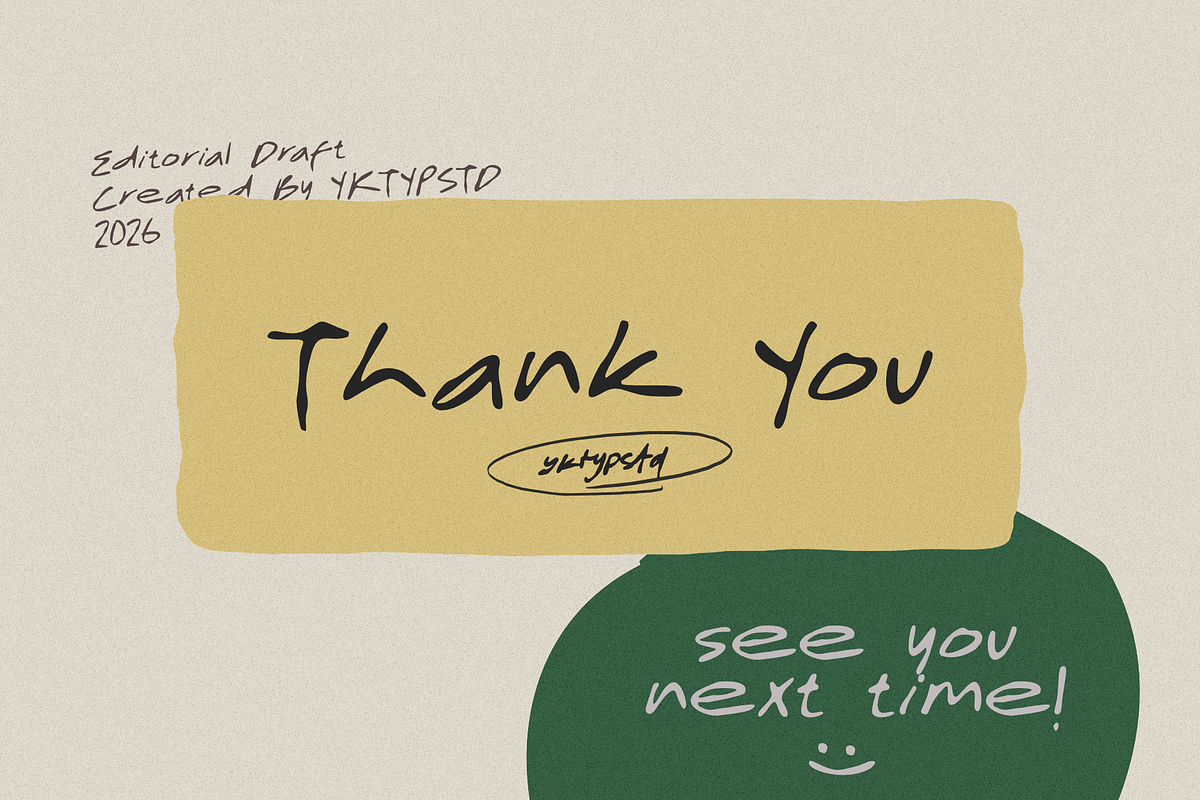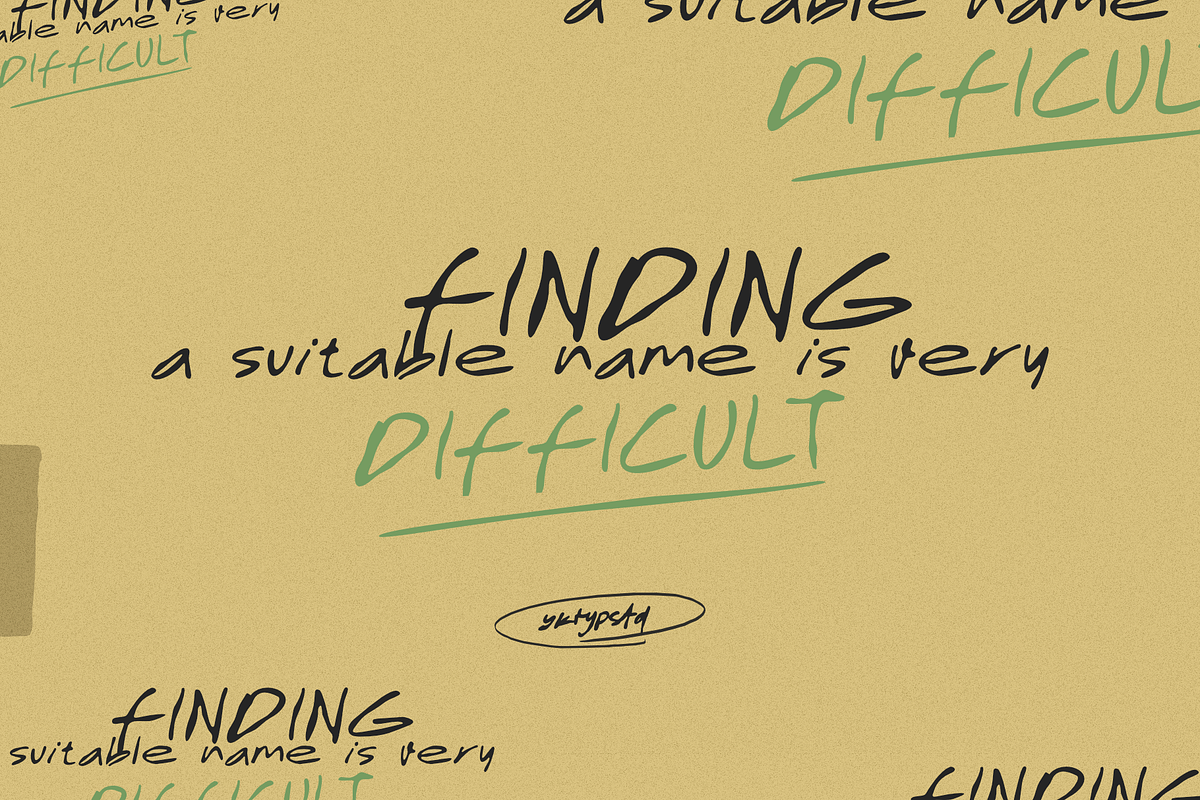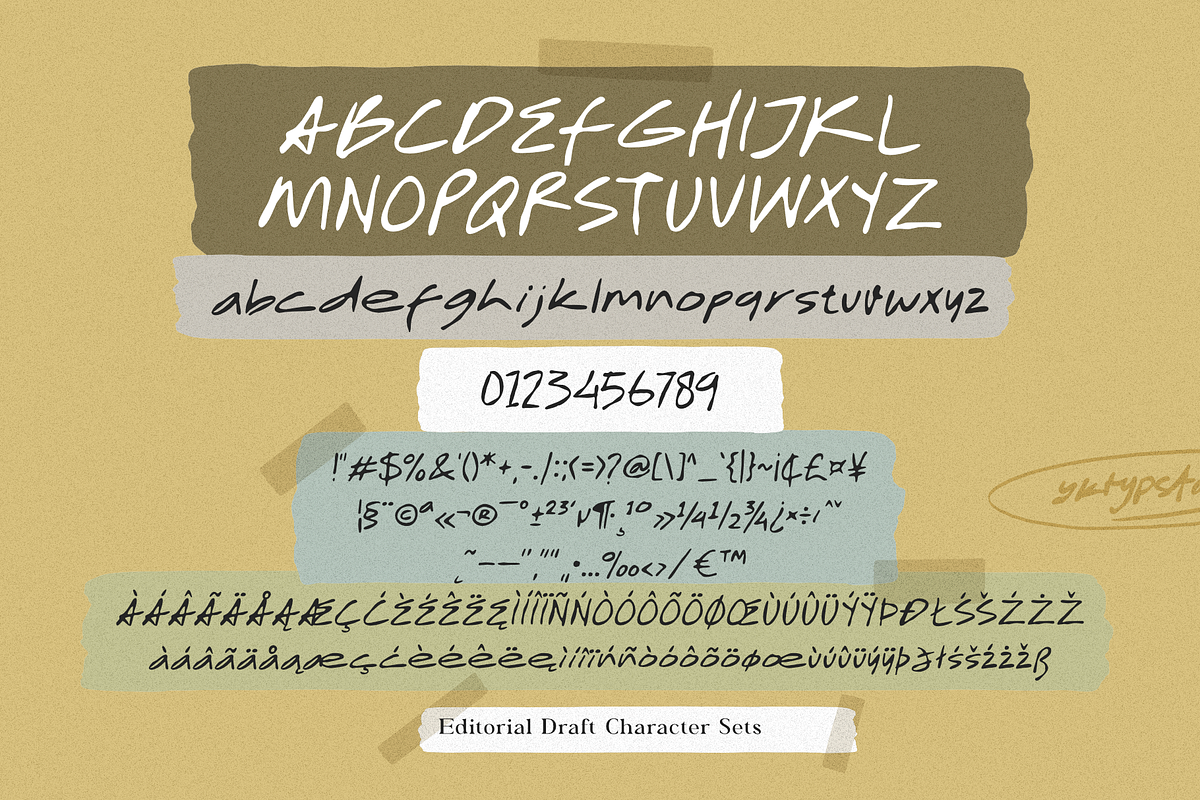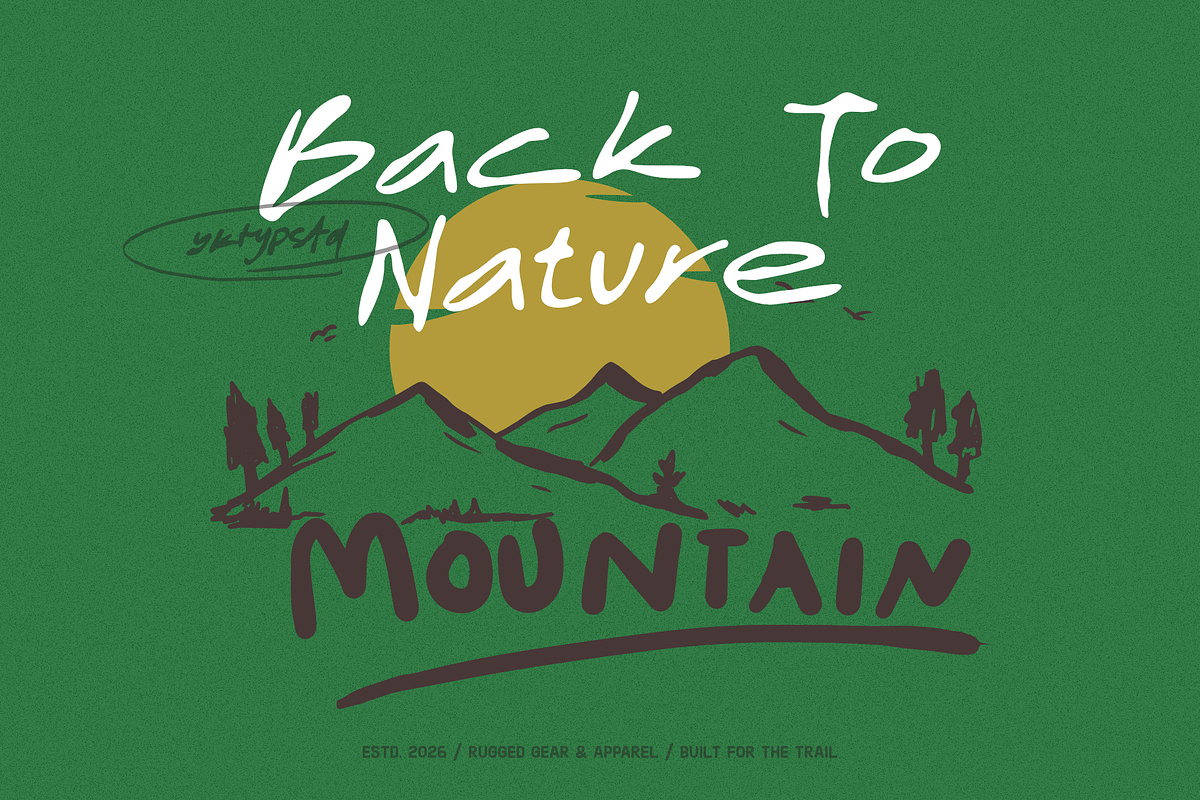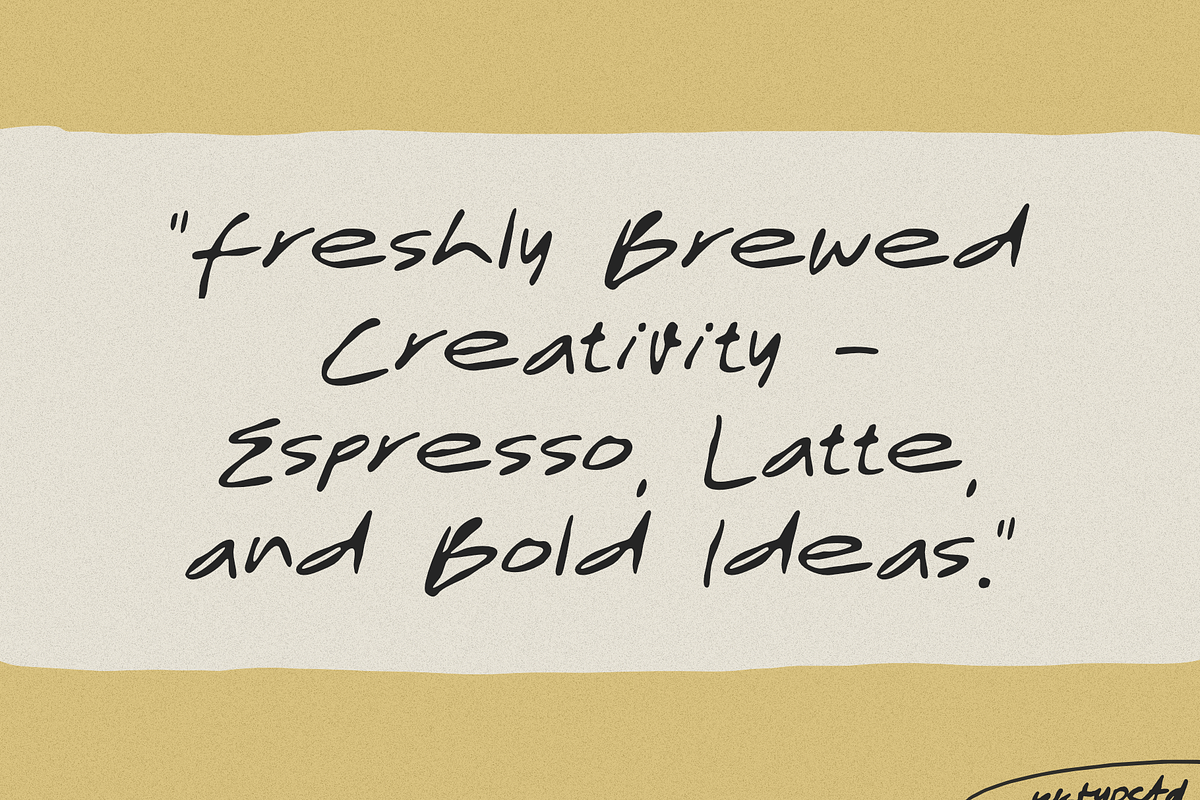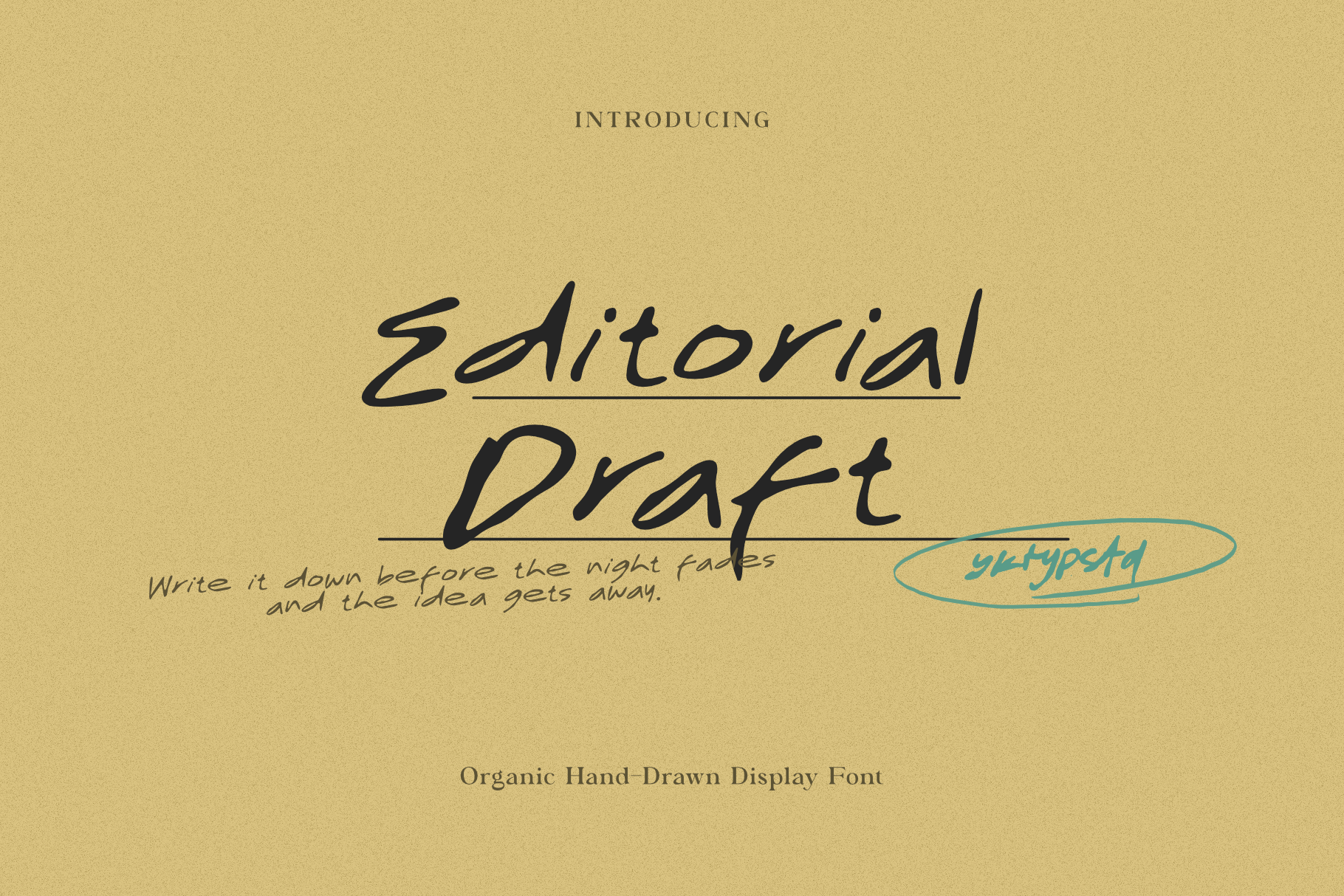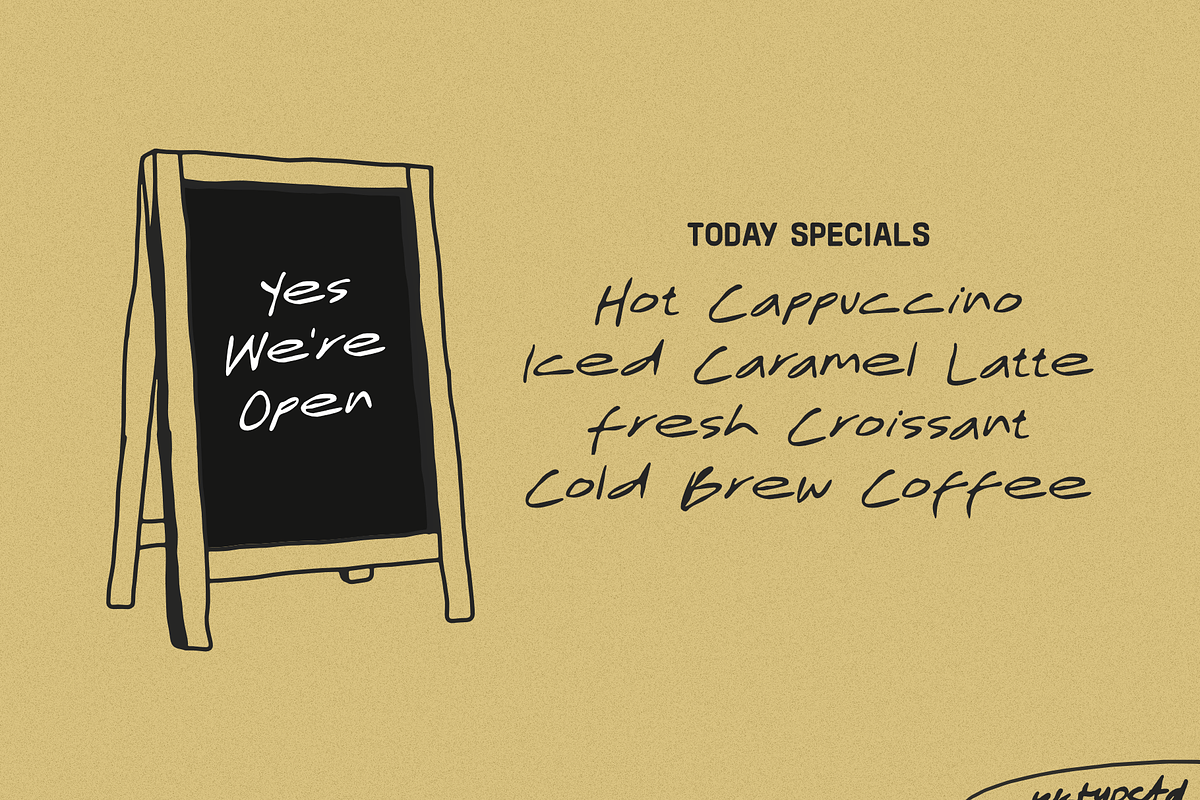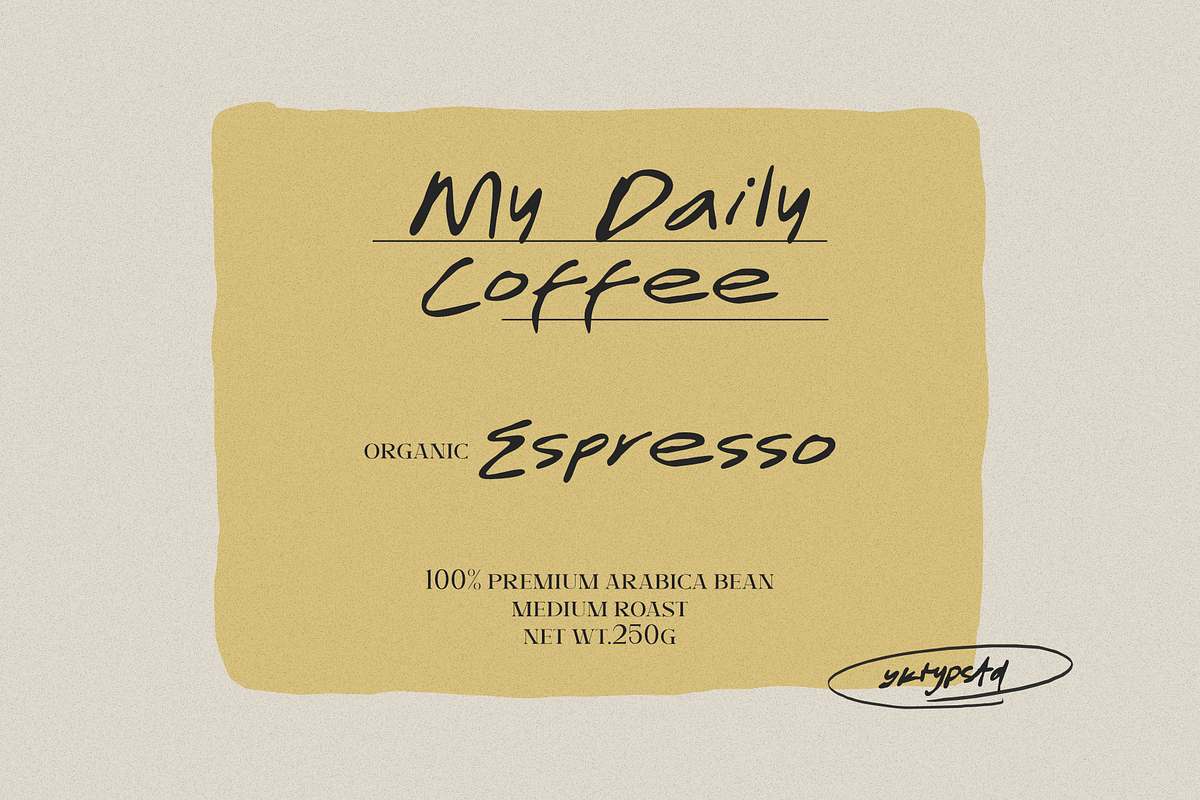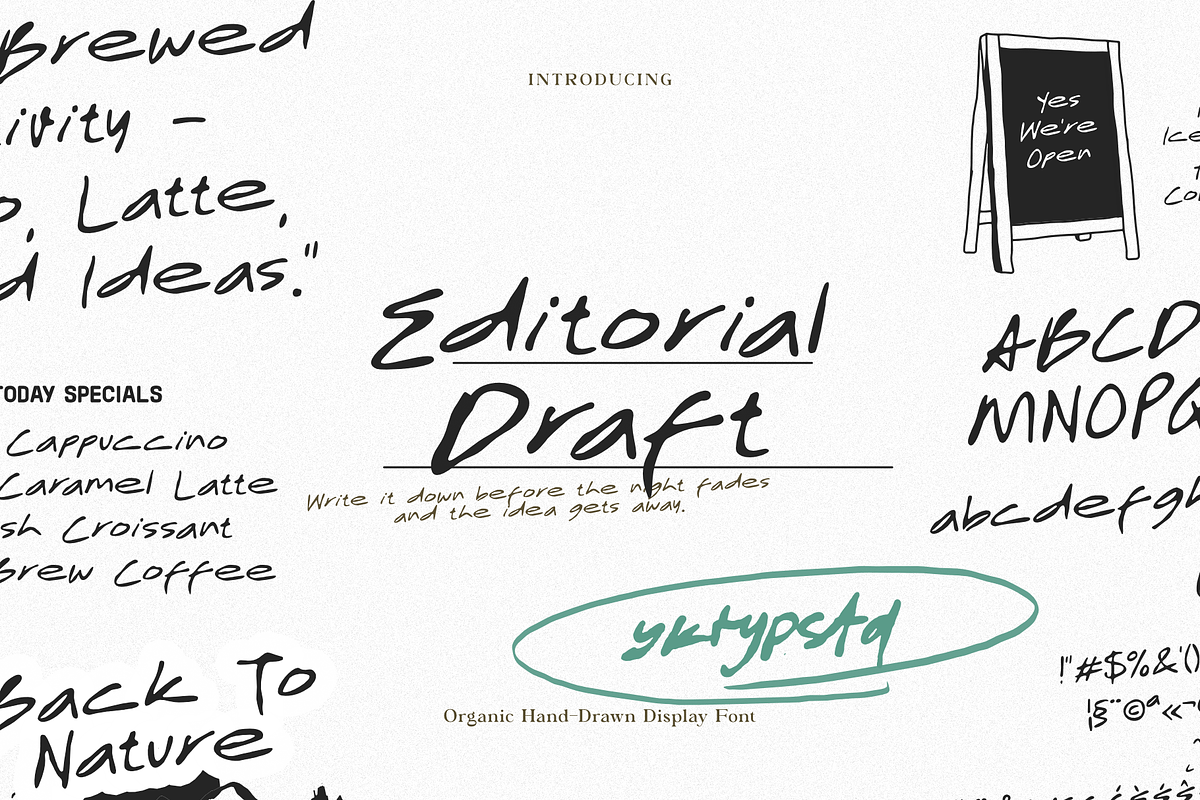
Editorial Draft - Hand Drawn Font
Editorial Draft | Organic Hand-Drawn Display Font
Capture the raw energy of spontaneous ideas with Editorial Draft, an organic hand-drawn display font designed for creators who love a touch of authentic, human personality in their work.
Editorial Draft is perfect for digital journaling (GoodNotes/Notability), Instagram quotes, aesthetic mood boards, editorial margin notes, minimalist branding, clothing apparel, book covers, and creative packaging.